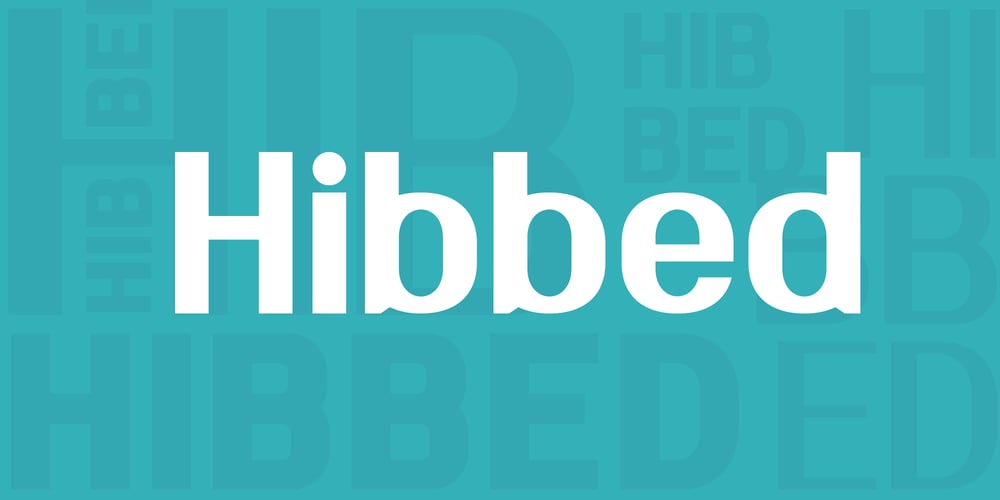
Hibbed
Hibbed font
Hibbed Font Family was designed by Volodymyr Berla and published by VladB. Hibbed contains 8 styles and family package options. Hibbed is a modern narrow geometric sans serif font, includes upper and lower case characters, Latin, Cyrillic, Latin Eastern Europe, Turkish, Baltic and other, 500+ symbols.Hibbed family consists of 8 fonts, divided into 2 subgroups (according to the type of style – St, Rd), and have the 4 types of thickness in each subgroup.Hibbed fonts will be useful in developing a brand, creating posters and other graphic products, and for word processing.